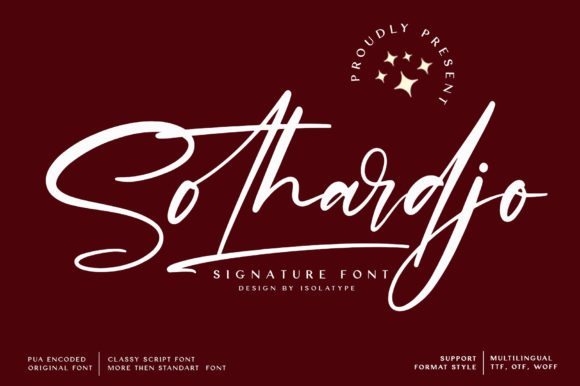
Sothardjo Font: A Delicate and Elegant Handwritten Font
The world of typography is vast and diverse, with numerous fonts available for various design needs. Among these, the Sothardjo font stands out for its delicate, elegant, and flowing handwritten style. This font is designed to add a touch of sophistication and refinement to any design project. In this article, we’ll explore the features and benefits of the Sothardjo font, and why it’s an excellent choice for designers and crafters.
What is Sothardjo Font?
Sothardjo is a beautifully crafted handwritten font that exudes elegance and refinement. Its delicate and flowing lines make it perfect for designs that require a touch of sophistication. The font has well-balanced characters, which enable it to match a wide range of designs, from wedding invitations and stationery to branding and advertising materials.
Key Features of Sothardjo Font
- Delicate and Elegant: Sothardjo’s flowing lines and delicate strokes make it an ideal choice for designs that require a touch of refinement.
- Well-Balanced Characters: The font’s characters are well-balanced, making it easy to pair with a wide range of designs.
- PUA Encoded: Sothardjo is PUA (Private Use Area) encoded, which means you can access all the glyphs and swashes with ease.
The Benefits of Using Sothardjo Font
Using the Sothardjo font in your design projects offers several benefits. Here are a few:
Versatility
Sothardjo’s well-balanced characters and elegant style make it versatile and suitable for a wide range of designs. You can use it for:
- Wedding invitations and stationery
- Branding and advertising materials
- Packaging designs
- Signage and display designs
Ease of Use
Sothardjo is PUA encoded, which makes it easy to access all the glyphs and swashes. This feature saves you time and effort, allowing you to focus on the creative aspects of your design project.
Unique and Creative
Sothardjo’s delicate and elegant style sets it apart from other fonts. Its unique and creative design makes it perfect for designers and crafters looking to add a touch of sophistication to their projects.
In conclusion, the Sothardjo font is a delicate, elegant, and flowing handwritten font that offers a touch of sophistication and refinement to any design project. Its well-balanced characters, PUA encoding, and unique design make it an excellent choice for designers and crafters. With its versatility, ease of use, and creative possibilities, Sothardjo is a font that’s worth exploring.
- What is Sothardjo font? Sothardjo is a delicate, elegant, and flowing handwritten font.
- What is PUA encoding? PUA (Private Use Area) encoding is a feature that allows easy access to glyphs and swashes.
- What design projects is Sothardjo suitable for? Sothardjo is suitable for a wide range of designs, including wedding invitations, branding and advertising materials, packaging designs, and signage.